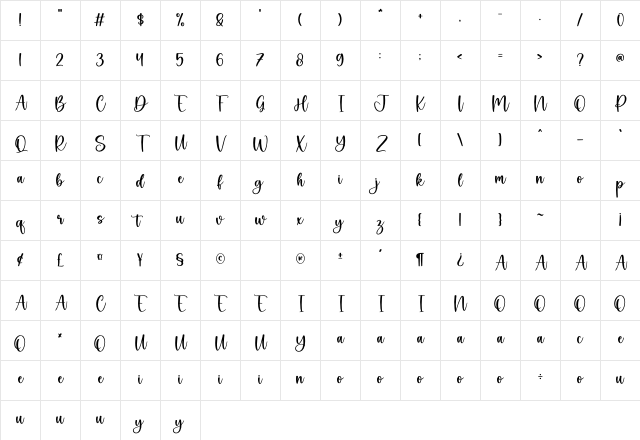
Country Wedding Regular Free Font
Country Wedding Regular
Foundry: Graphix Line Studio
Designer: Aldi Raya Pradipta
Complete Country Wedding Regular glyph index. Displaying only characters natively supported by Country Wedding Regular font.
Design Context for Country Wedding
Country Wedding is a composed and adaptable typeface that performs quietly and consistently across a wide range of design contexts.